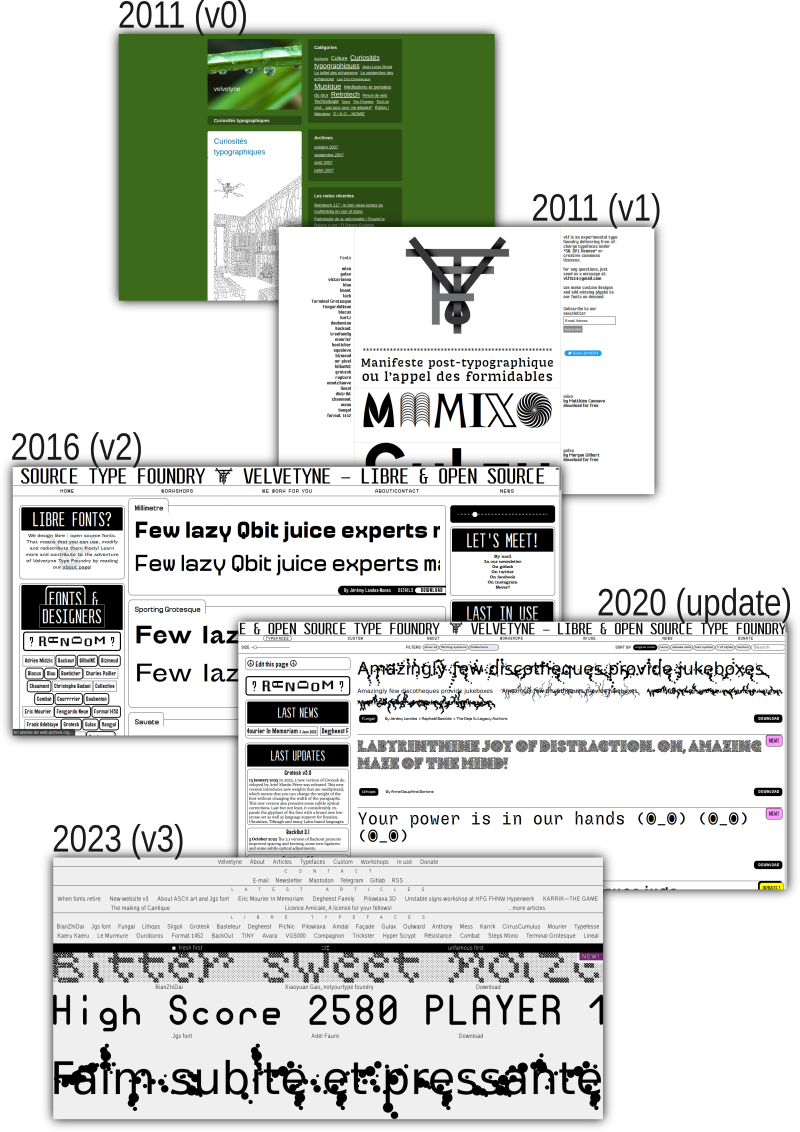
New website v3
The velvetyne.fr website mirrors the collective’s activities and evolves according to our needs and reflections. Beyond its technical function, it serves as a valuable tool, prompting us to contemplate what Velvetyne Type Foundry represents and the aspirations of the collective.
Velvetyne websites in time
More than a mere website redesign, the V3 version provides the collective with an opportunity to delve into Velvetyne’s core values. Focusing on our strengths, we aimed to share what we do the best while navigating the economic constraints inherent in a non-profit project, as we work as volunteers. Rather than starting from scratch, we built upon the extensive content gathered from years in V2, including font pages, specimen styles, articles, and In Use images that have contributed to the fonts’ presence in the visual landscape.
In addition to economic constraints, we desired a more restrained visual, technical, and structural approach for the new website. We aimed to add less and remove more, emphasizing simplicity. This article summarizes the technical and contextual aspects of the work undertaken.
Keeping What Works
Lighter: Server, Client, and Environment Side
In the initial days of V3, we focused on removing a significant amount of code from V2. All stylesheets were moved to trash, and 90% of the PHP templates were rewritten. Due to the accumulation of updates from various members, patches here and there, the code had become cumbersome, undocumented, and inconsistent. This cleanup presented an opportunity to develop improved code, featuring a better structure, frequent comments, and compatibility with the implicit common “style” shared by Velvetyne members interested in web development.
Graphic Choices
Recognizing the challenges of design decisions within a collective, a single member (I, Raphaël Bastide) undertook both development and design foundations. A minimalist, intentional design approach was adopted, featuring a purposefully present menu, an RSS feed, and layout choices ranging from justified to centered, grid to off-grid, paying homage to early web aesthetics.
I accepted to take on this role, and even though the work was lengthy and occasionally challenging, I still believe it was a good decision to make the website’s release a reality. Making design choices in the name of the collective posed a bit of a challenge for me, but by communicating my progress step by step and informing others about the process, I opened the door to suggestions and comments. This greatly assisted me in embracing this demanding task. The collective provided me with both freedom and confidence to proceed in this direction. Velvetyne, in this context, was akin to any other (kind) client.
Zoom on the website’s header
The two Velvetyne members, Mariel Nils and Manon Van der Borght, volunteered to create the font used on the V3 website: Velvelyne. This font emerged from rough iterations of a fork of Liberation Sans Narrow, which were transformed using a font-to-skeleton tool called Skelefont. Allow me a few words on Skelefont: In spring 2023, I approached Benjamin Dumond to develop an open-source Python script to automate something I used to do manually: Skelefont transforms any font into a skeleton, applies a given stroke width, and generates a new font version from it within minutes. The resulting characters are no-contrast, dry-then-weighted version of the original, that is sometimes challenging to even recognize. Skelefont is still in development, we will talk a little bit more about it when Velvelyne will be officially released here.
In the hands of Mariel and Manon, our font Velvelyne evolved from this rugged creature into an elegant, usable character, proudly acknowledging its roots in the structure of Liberation Sans Narrow and the tough diet imposed by the Skelefont program. The first time I tested this font on the web pages, I knew it was one of the most impactful design choices throughout the entire process. Velvelyne brought something that was missing, V3 had a soul.
Velvelyne, the font used on this website
The outcome of collaboration
Spring-cleaning efforts were made collectively to think and process the retirement of some of our historic typefaces. Additionally, every member of the collective contributed by rectifying texts, translations, documentation, and crafting custom specimens for each font page.
In the end, I come to realize that this website was a collaboration from first drafts to release. This project developed through its dedicated discussion channel over more than… 1 year, (oops) ; Yet, working within constraints is where creativity can truly flourish, and our constraints — economy, time, collaboration — morphed into a distinctive signature for our website, a crucial tool showcasing the world the production of our collaborators, of which we are immensely proud.